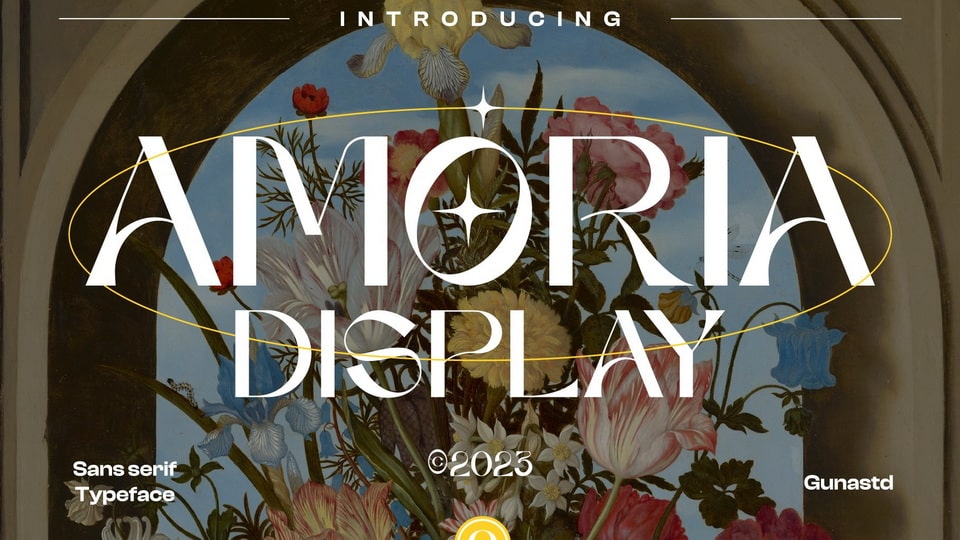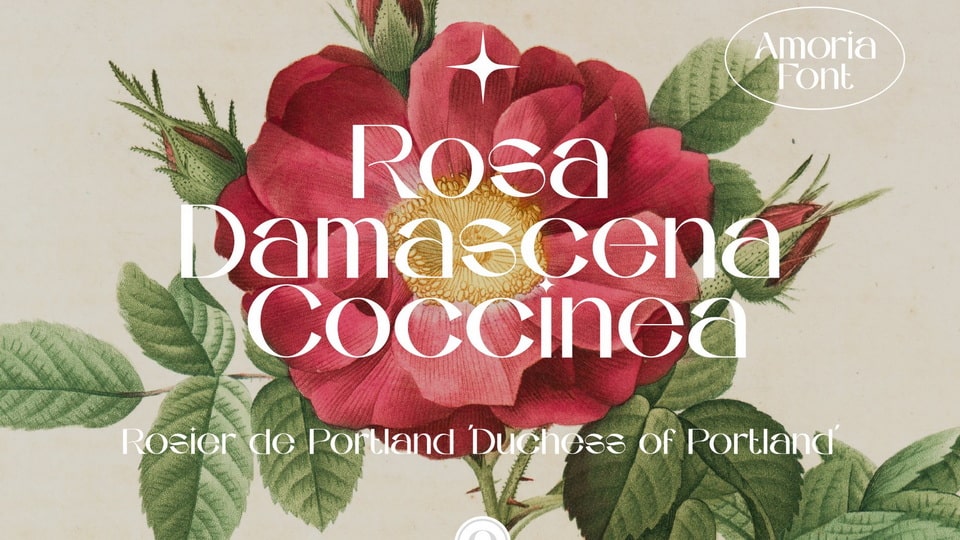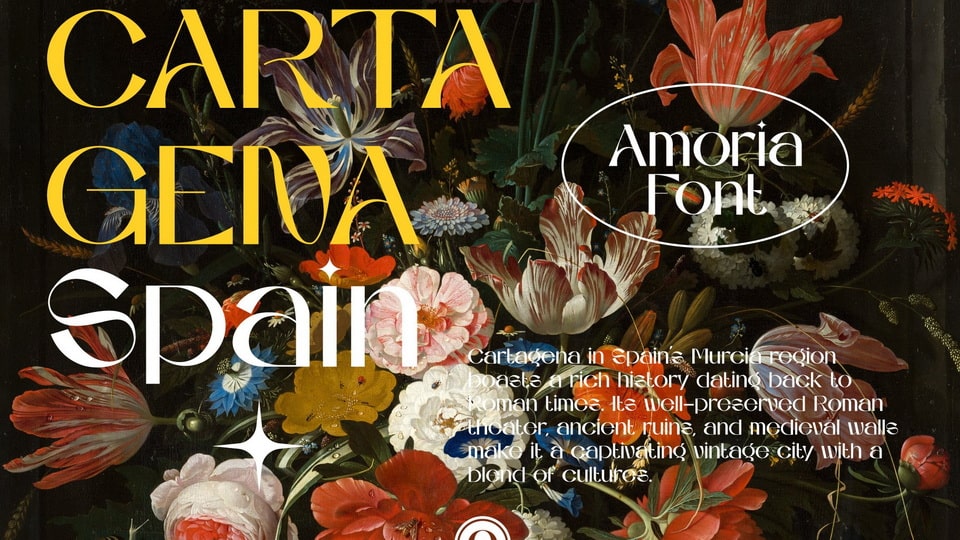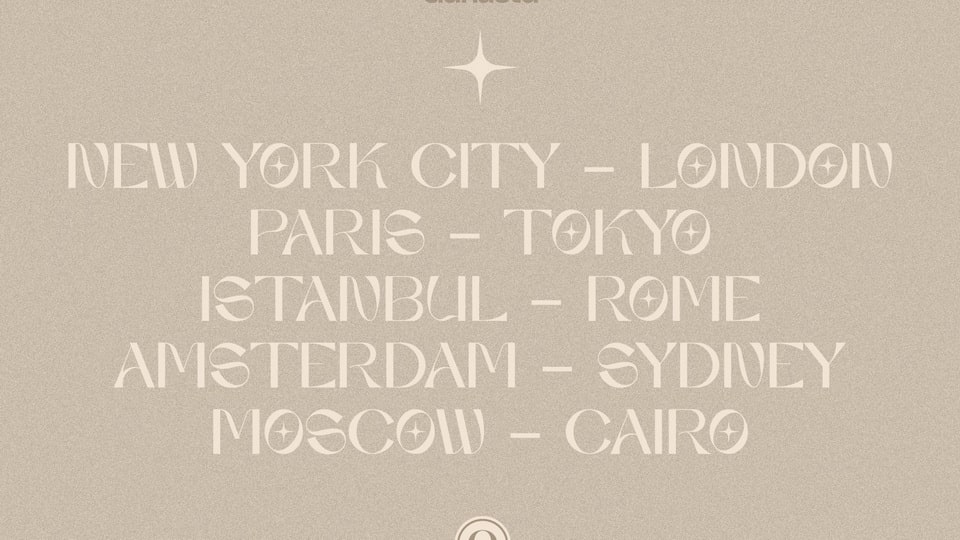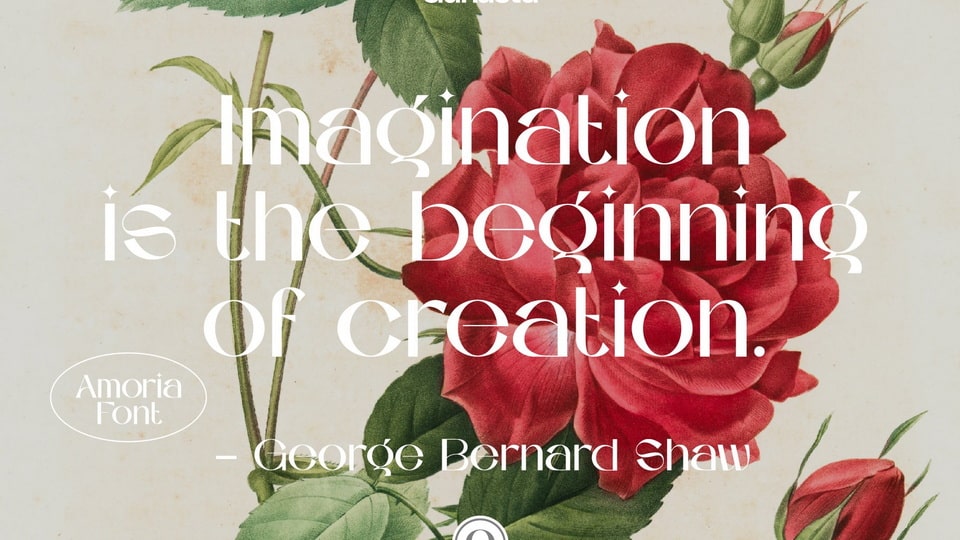
Amoria is a modern sans serif font with decorative characters. It will be perfect for many different projects such as logos and branding, invitation, poster, flyer, wedding designs, social media posts, advertisements, label, photography, watermark, special events or movie posters.